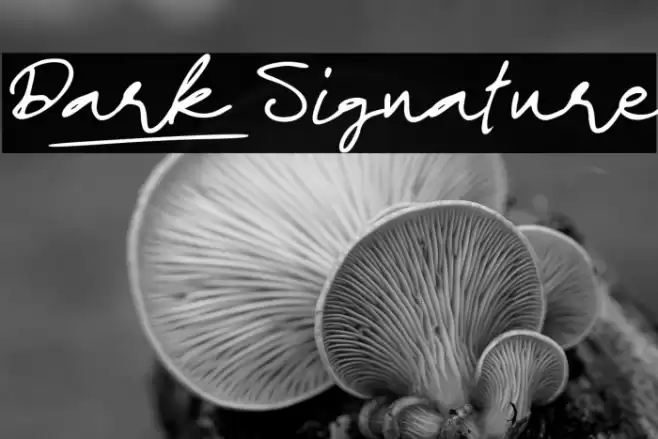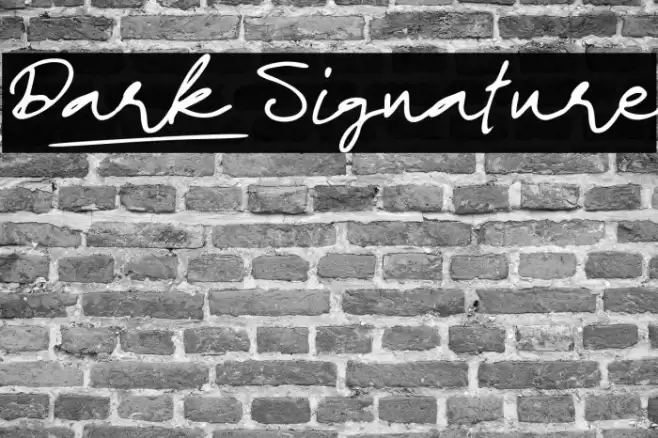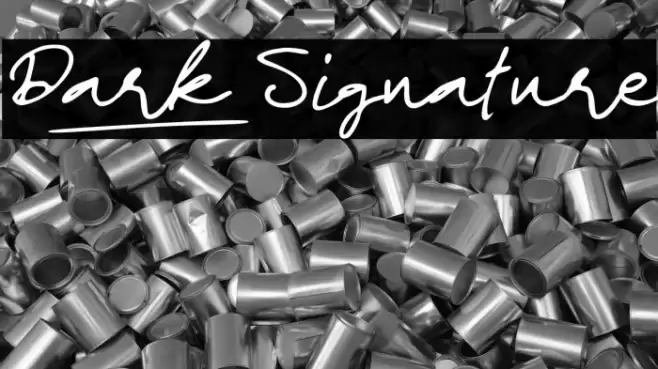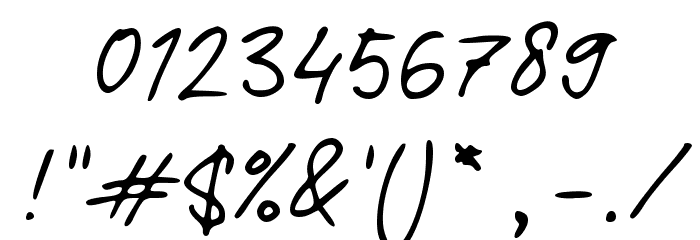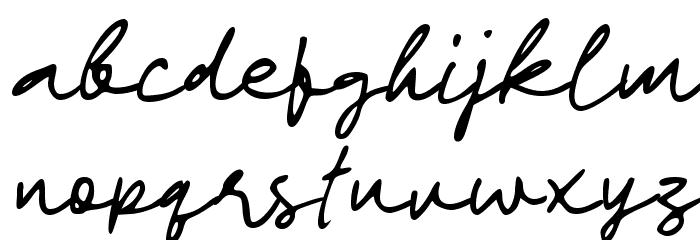
Dark_Signature Font
Dark_Signature Description
This font exudes a dynamic and expressive style, characterized by its fluid, cursive script that mimics the natural flow of handwriting. The letters are interconnected, creating a seamless and elegant appearance. The uppercase letters maintain a consistent height, while the lowercase letters exhibit a slight slant, enhancing the handwritten effect. The numerals and special characters are crafted with the same attention to detail, ensuring uniformity across the entire set. The strokes vary in thickness, adding a touch of sophistication and depth to the overall design. This font is ideal for projects that require a personal and artistic touch, such as invitations, greeting cards, or branding materials.
A dynamic, cursive script font with a natural, handwritten flow from Handwritten fonts.
- Proposed Projects: Ideal for invitations, greeting cards, branding, and artistic projects.
- Use Case: Logos, Headlines, Artistic projects